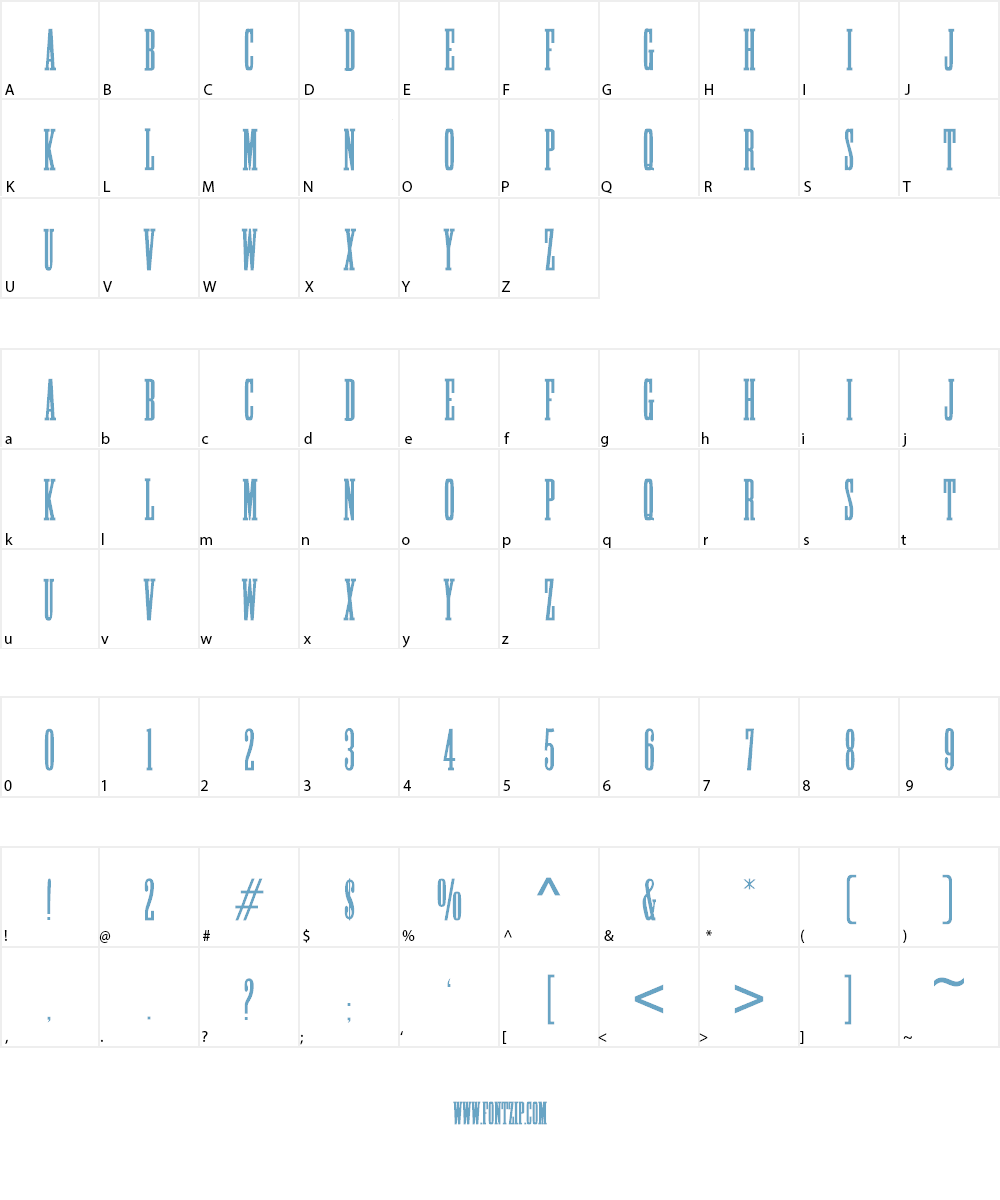
HFF High Tension is based on Bamberg, from page 11 of "Circus Alphabets:
100 Complete Fonts" by Dan X. Solo, first published by Dover
Publications in 1989. Bamberg is also featured on page 32 of "The
Solotype Catalog of 4,147 Display Typefaces".
HFF High Tension is not a faithful digitization of Bamberg. This is an
all caps font unlike Dan X. Solo's Bamberg where he added lowercase
alphabets. The font was auto-kerned and no effort was made to further
adjust the kerning. The Bamberg plate in Circus Alphabets has 3 symbols
and punctuations. The extra characters in HFF High Tension were made up
by me and would likely be different if the original type creator made
them. These extra characters are also likely to be different from that
of Solo's font.